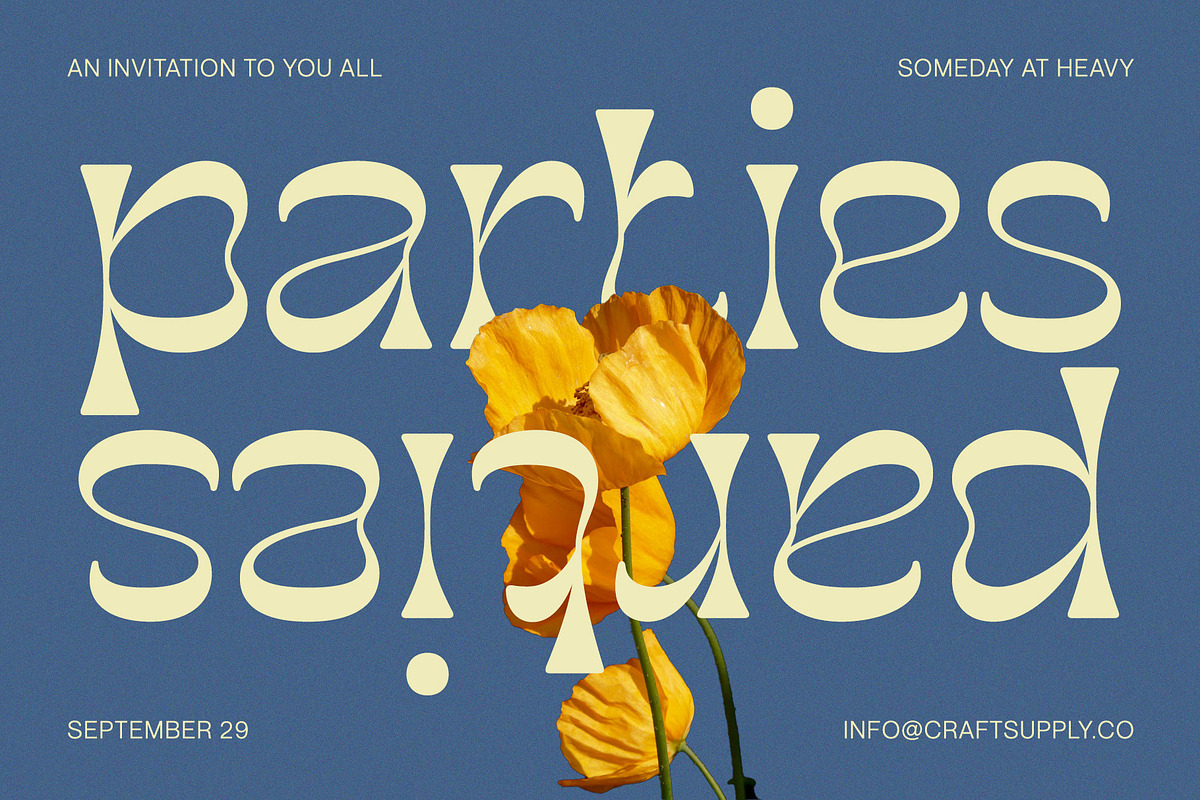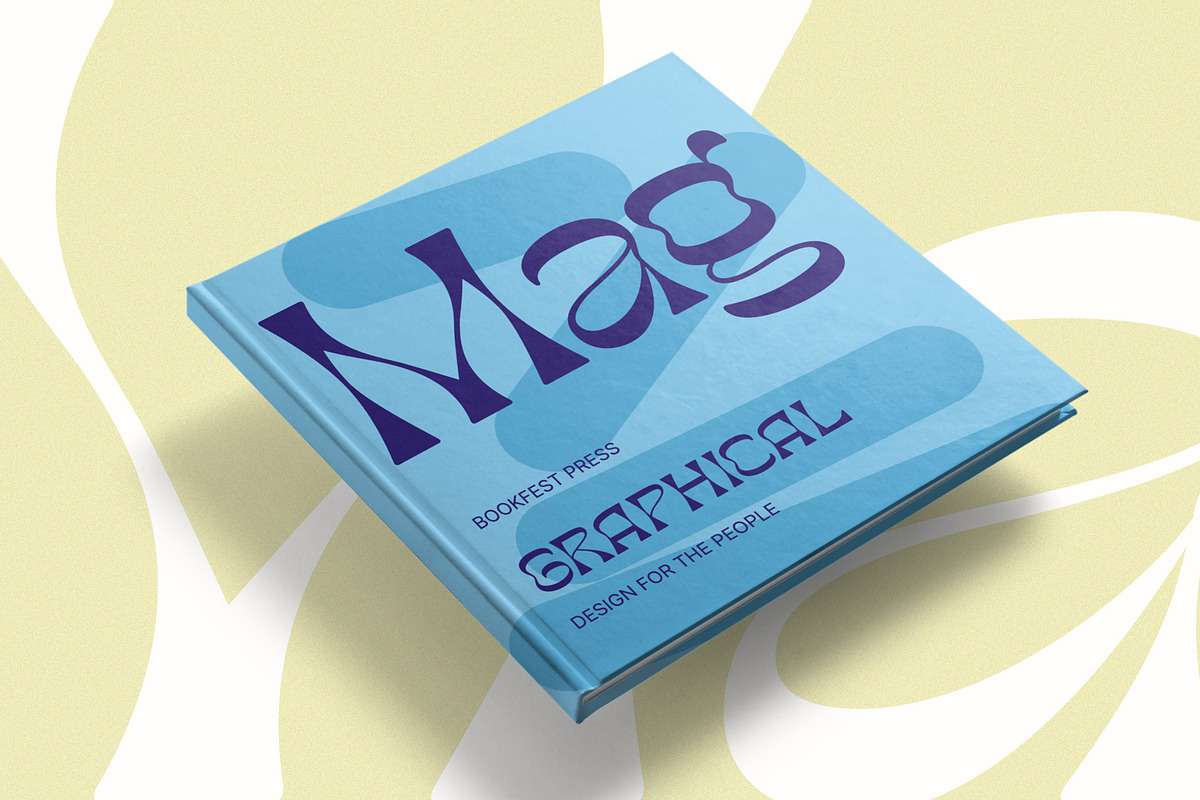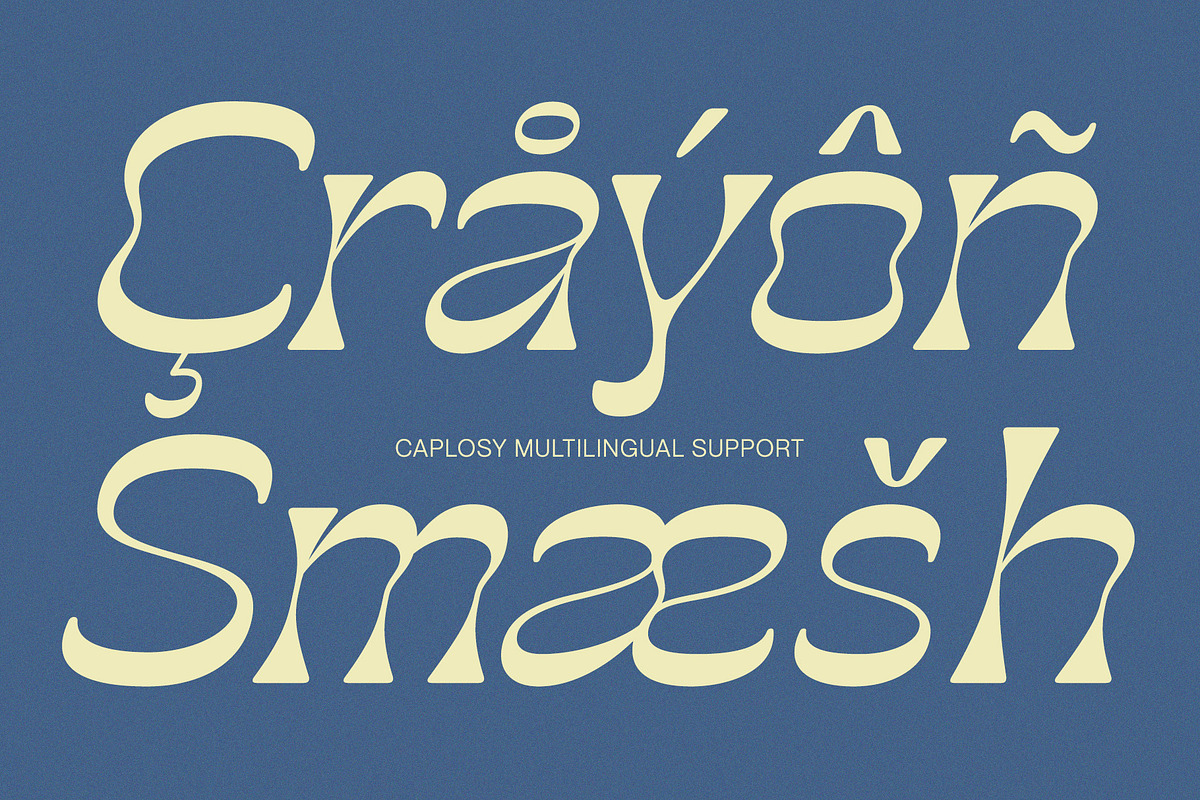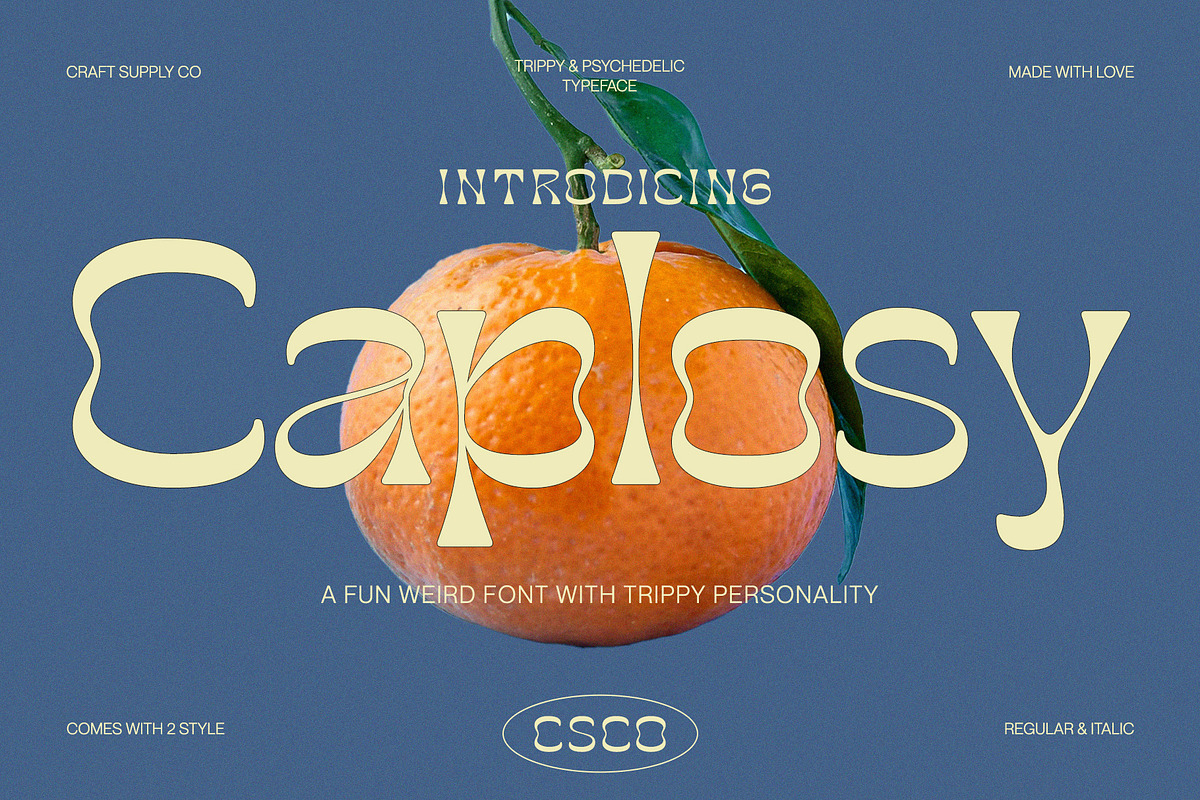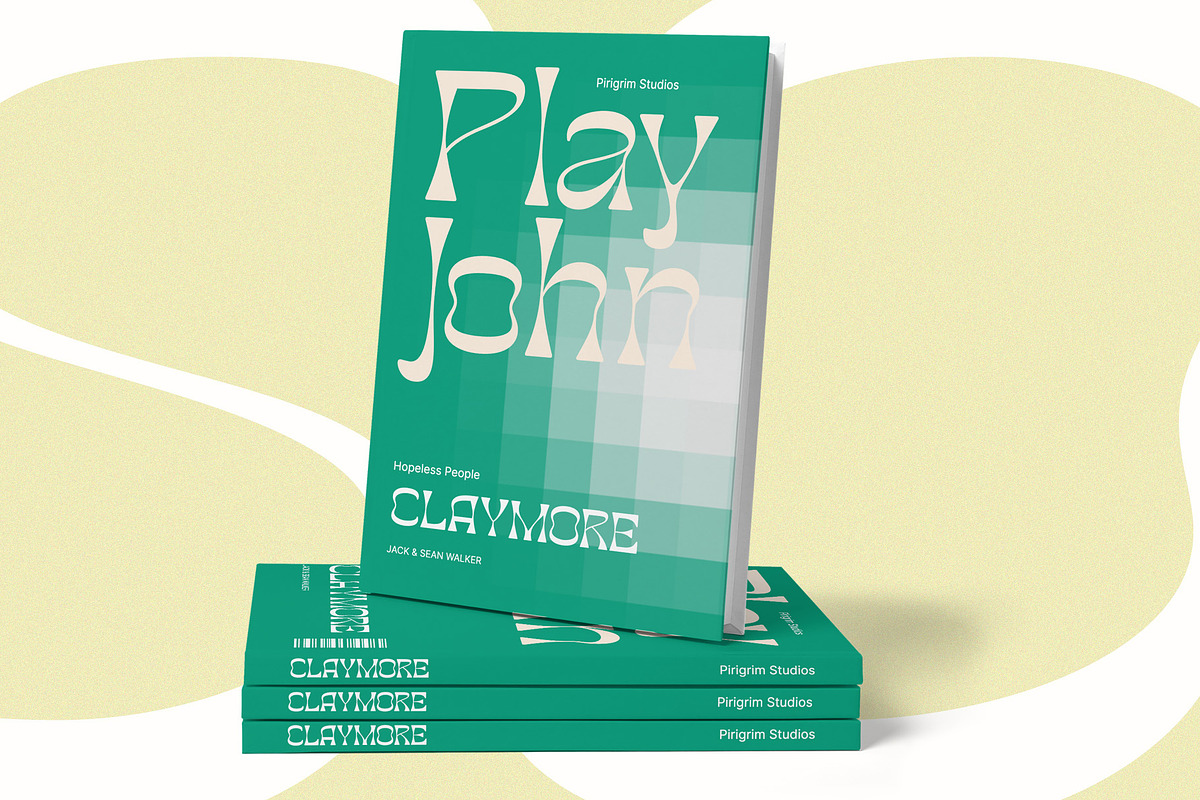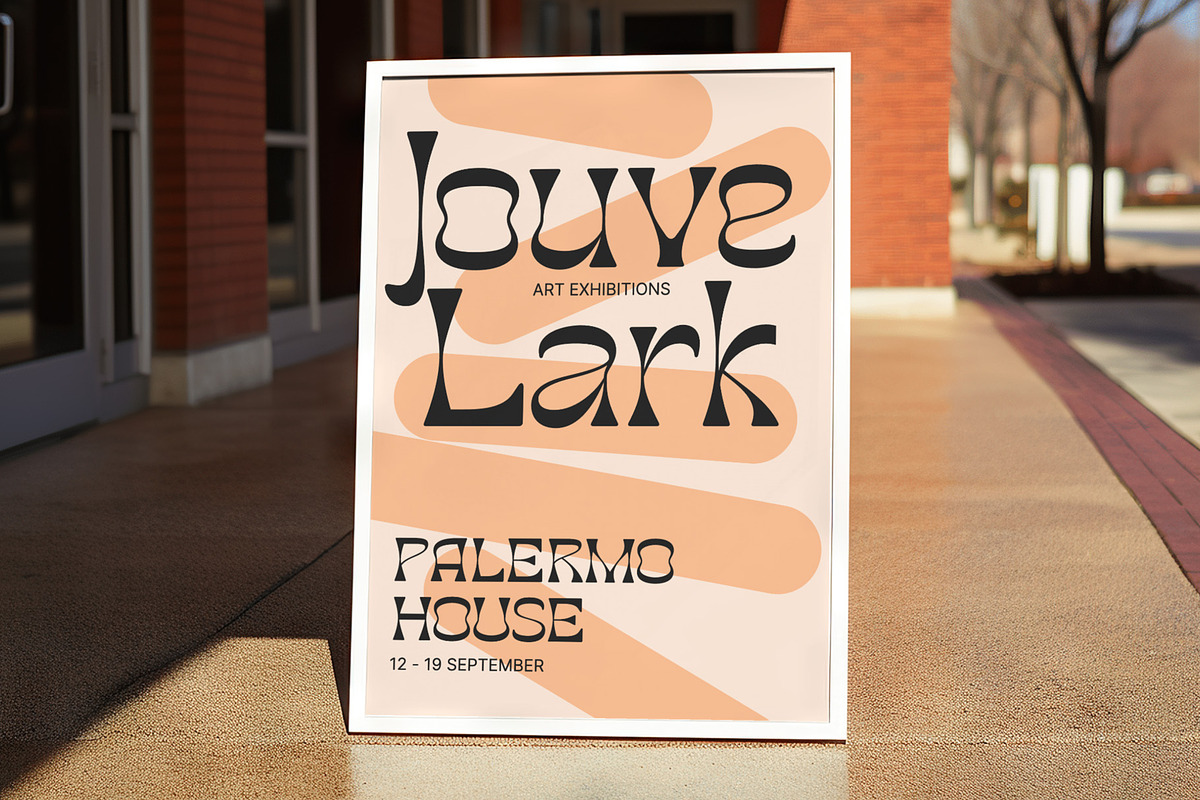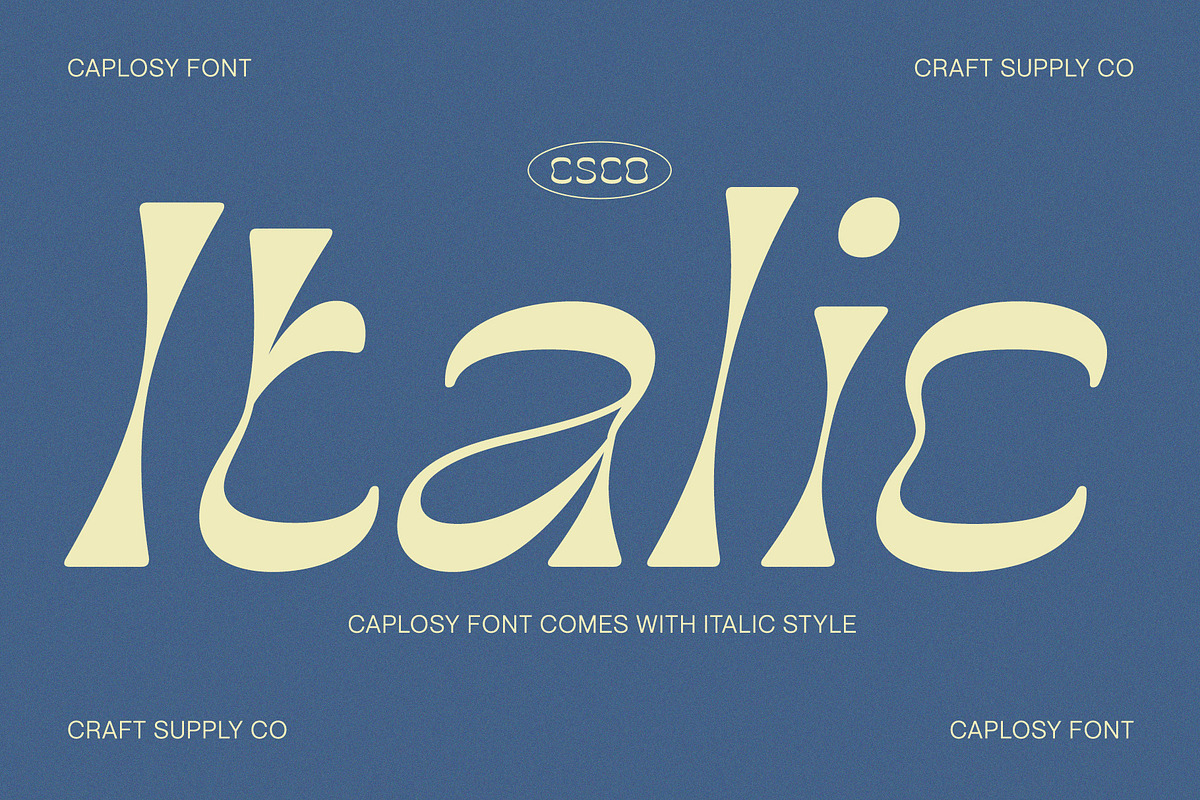
Caplosy - Trippy Font
Caplosy - Trippy Font is a font that transcends the boundaries of conventional typography, drawing inspiration from the mesmerizing world of psychedelia. Its letterforms twist and twirl in a captivating dance, inviting you to explore a typographic realm that's equal parts strange and spellbinding.
This font is your passport to the extraordinary, a choice that says "ordinary" is simply not an option. Whether you're designing album covers, posters, or any creative endeavor that craves a mind-bending twist, Caplosy adds a touch of mystique and magic. Its unconventional, serpentine design transports viewers into a realm of altered perception, where the typography itself becomes a hypnotic journey.
Caplosy is like a wormhole into a trippy, surreal dimension within the world of fonts. It's the ideal choice for projects that want to challenge reality, creating a visually tantalizing, thought-provoking experience that's nothing short of an artistic adventure. Choose Caplosy when you're ready to take your design on a mind-bending trip through the extraordinary.
- Caplosy Regular
- Caplosy Italic